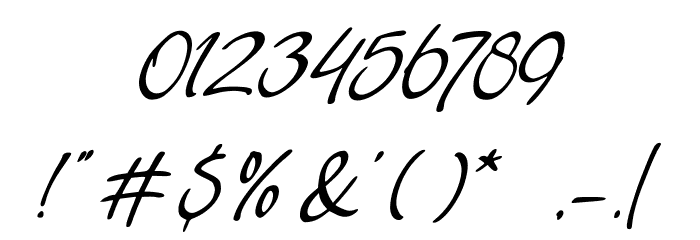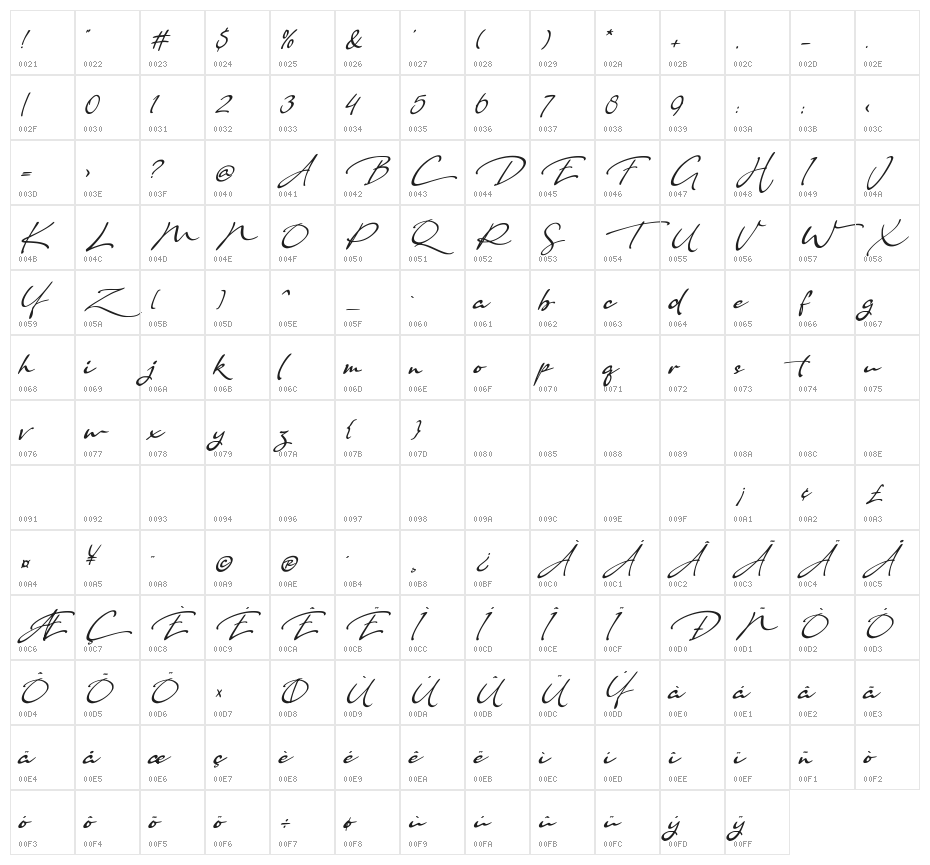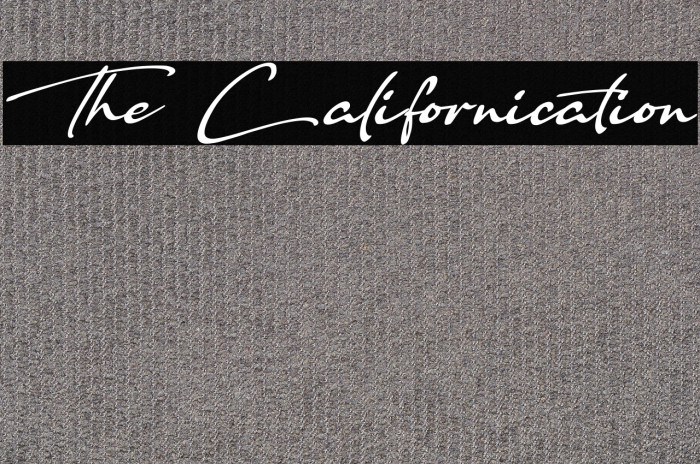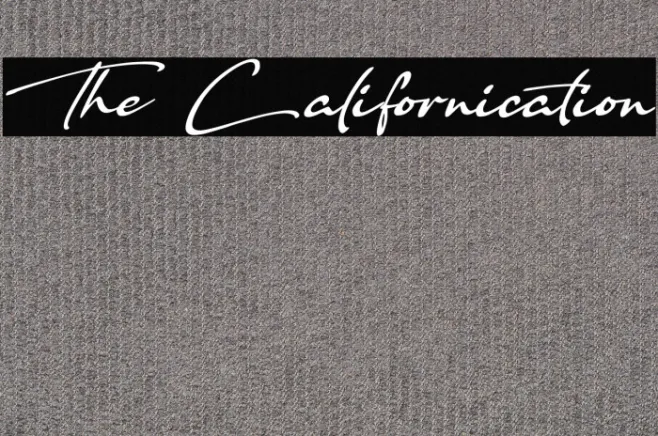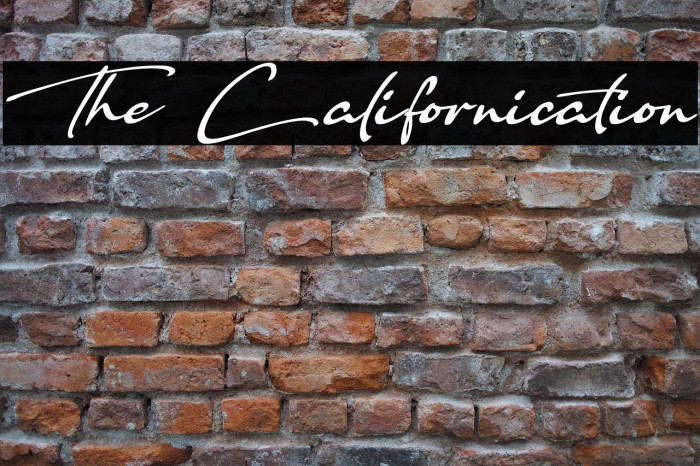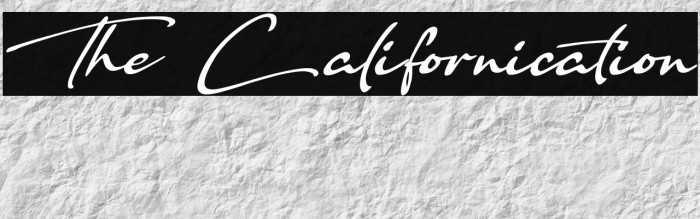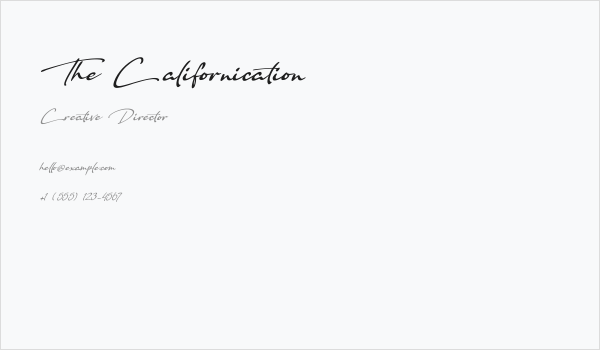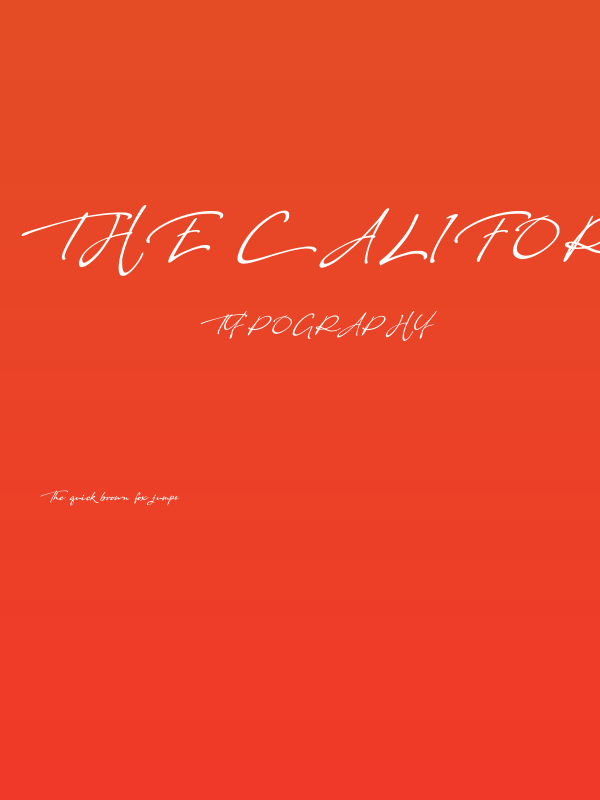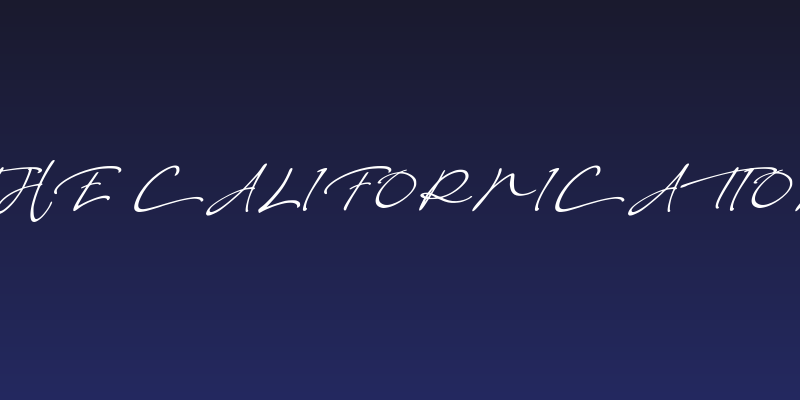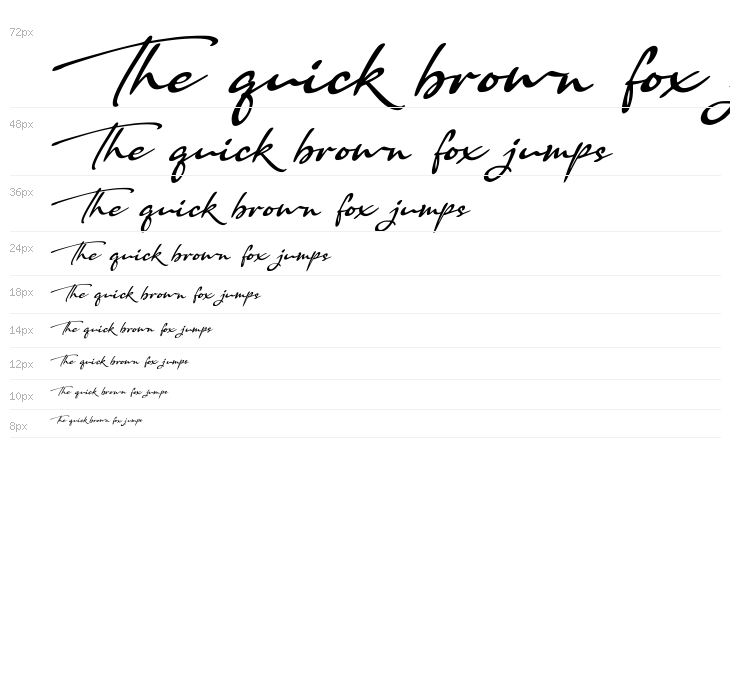
The Californication Font
The Californication Description
This font exudes a casual yet elegant handwritten style, characterized by fluid, connected strokes that mimic natural handwriting. The uppercase letters are slightly slanted, adding a dynamic flow, while the lowercase letters maintain a consistent rhythm. The numerals are distinct and clear, complementing the overall aesthetic. Special characters are seamlessly integrated, maintaining the font's cohesive look. The font's organic feel makes it versatile for various creative applications.
| Overall Style | Elegant, Casual |
| Use Case | Logos, Invitations, Artistic projects |
| Proposed Projects | Ideal for wedding invitations, personal branding, greeting cards, and artistic projects requiring a personal touch. |